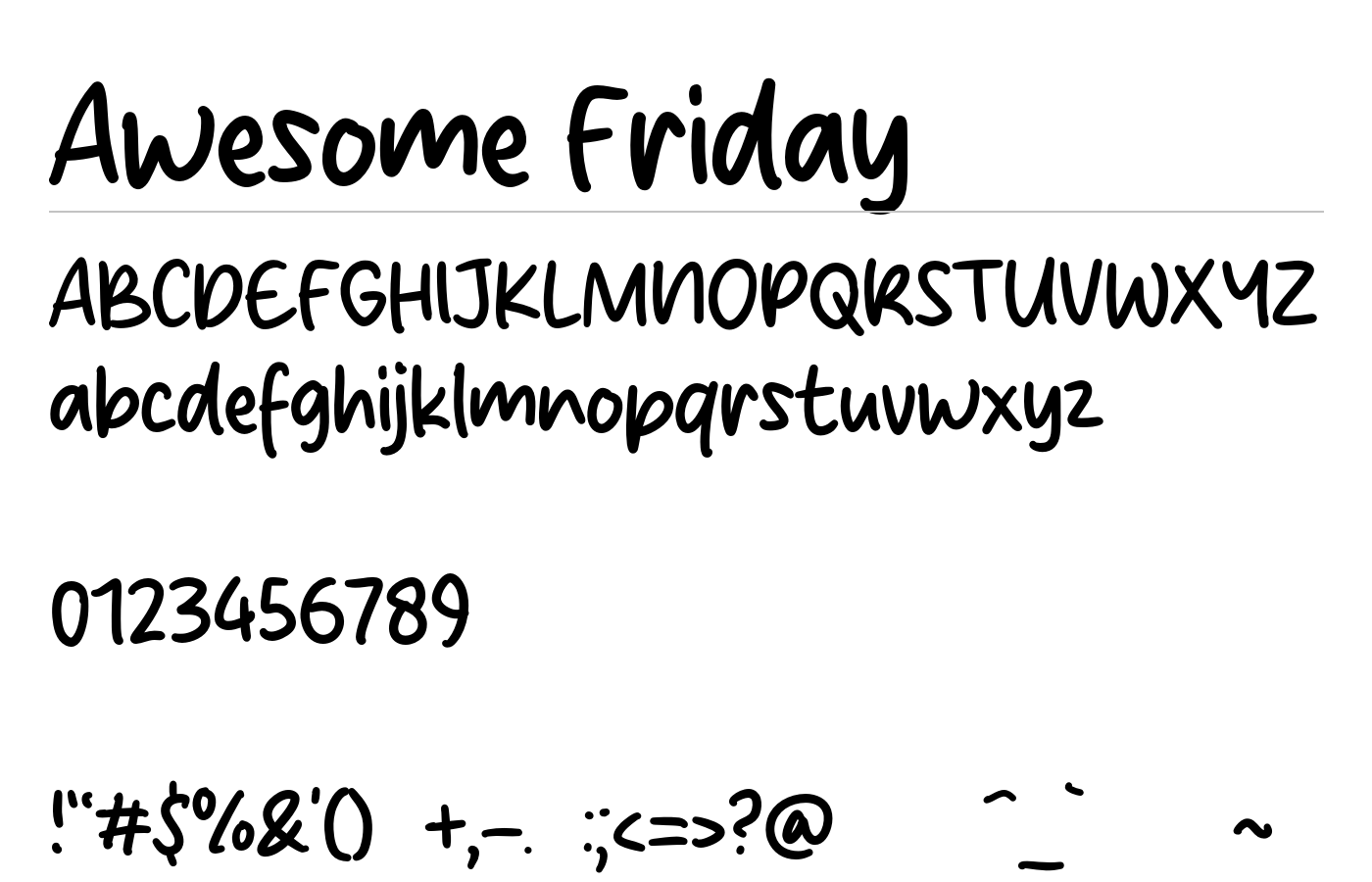
Awesome Friday is a playful and casual handwritten sans serif font with a friendly, informal vibe. Its rounded, slightly irregular letterforms and moderate weight make it perfect for projects that want to feel approachable and cheerful, such as kids’ products, personal branding, or lighthearted designs. This font works best in headlines, logos, and creative displays where a warm, human touch is desired.
Awesome Friday Font
About Awesome Friday Font